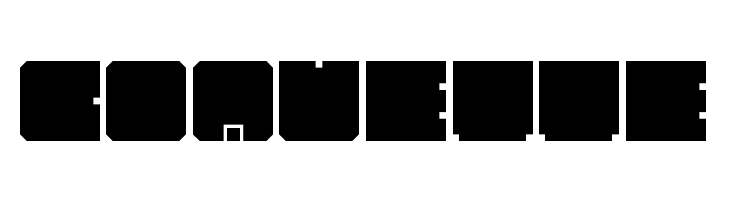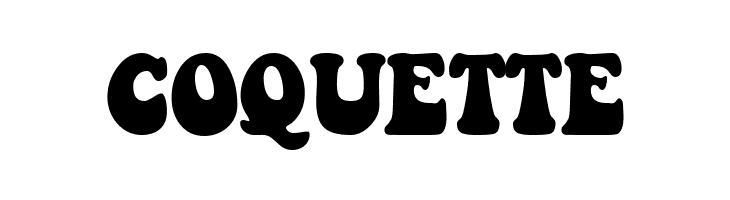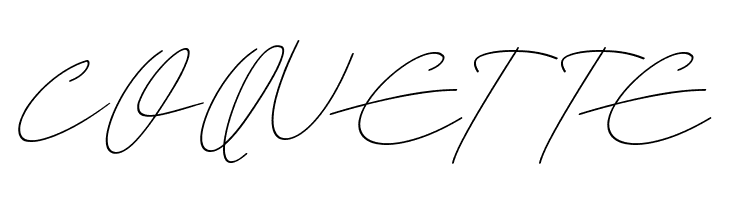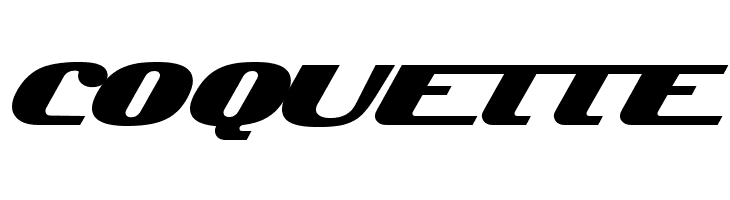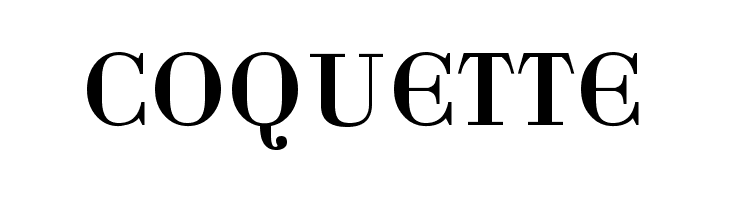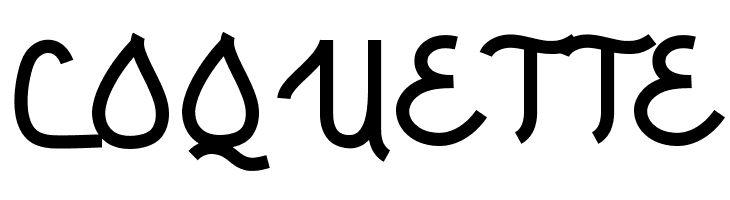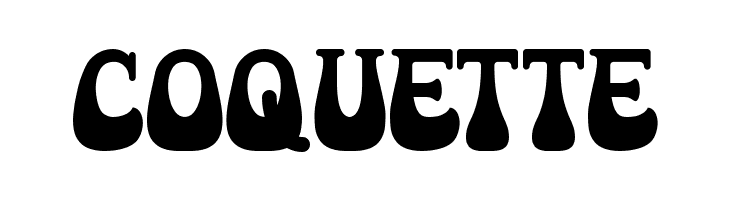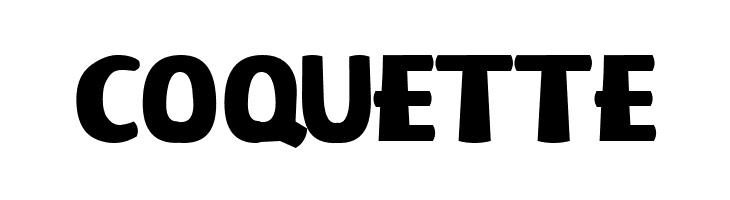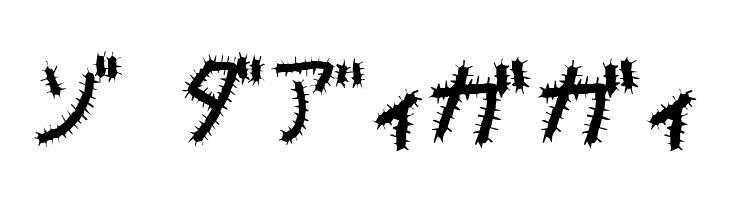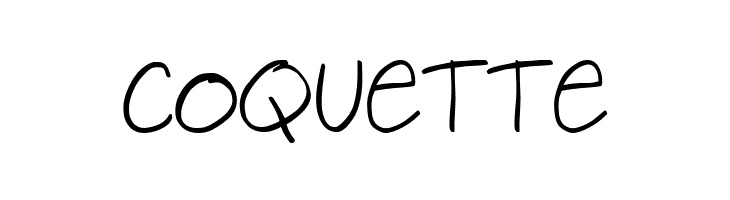
A bold, playful font with thick, rounded characters and a whimsical style.
A bold, modern font with flowing strokes and distinctive curves.
An elegant, flowing script font with a handwritten style.
A bold, geometric font with a modern, tech-inspired aesthetic.
A playful, handwritten font with rounded, consistent strokes and a casual vibe.
A bold, decorative font with a puzzle-like, geometric design.
A bold, pixelated font with a fragmented, digital aesthetic.
A bold, flowing script font with elegant curves and decorative flourishes.
An elegant, flowing script font with a natural handwriting style.
A whimsical, hand-drawn font with a playful and informal style.
A playful serif font with decorative flourishes and a classic yet modern appeal.
A playful, hand-drawn font with a whimsical and lively style.
A playful handwritten font with elegant curves and loops.
A bold, monospaced font with uniform character width and consistent stroke thickness.
A clean, modern monospaced font with uniform character width and geometric structure.
A clean, modern monospaced font ideal for coding and data presentation.
Playful handwritten-style font.
An elegant, whimsical cursive font with intricate loops and swirls.
A bold, retro font with playful, exaggerated letterforms and a 60s-70s vibe.
A bold, collegiate-style font with a strong, three-dimensional effect.
A bold, rounded font with a playful and retro vibe.
A cursive, handwritten-style font with elegant loops and smooth curves.
A vintage serif font with bold, sharp serifs and elegant curves.
A bold, classic serif font with strong strokes and elegant serifs.
A modern, clean sans-serif font with uniform stroke widths and excellent readability.
A playful, casual handwritten font with smooth, flowing lines.
A bold, playful font with exaggerated serifs and thick strokes, perfect for decorative use.